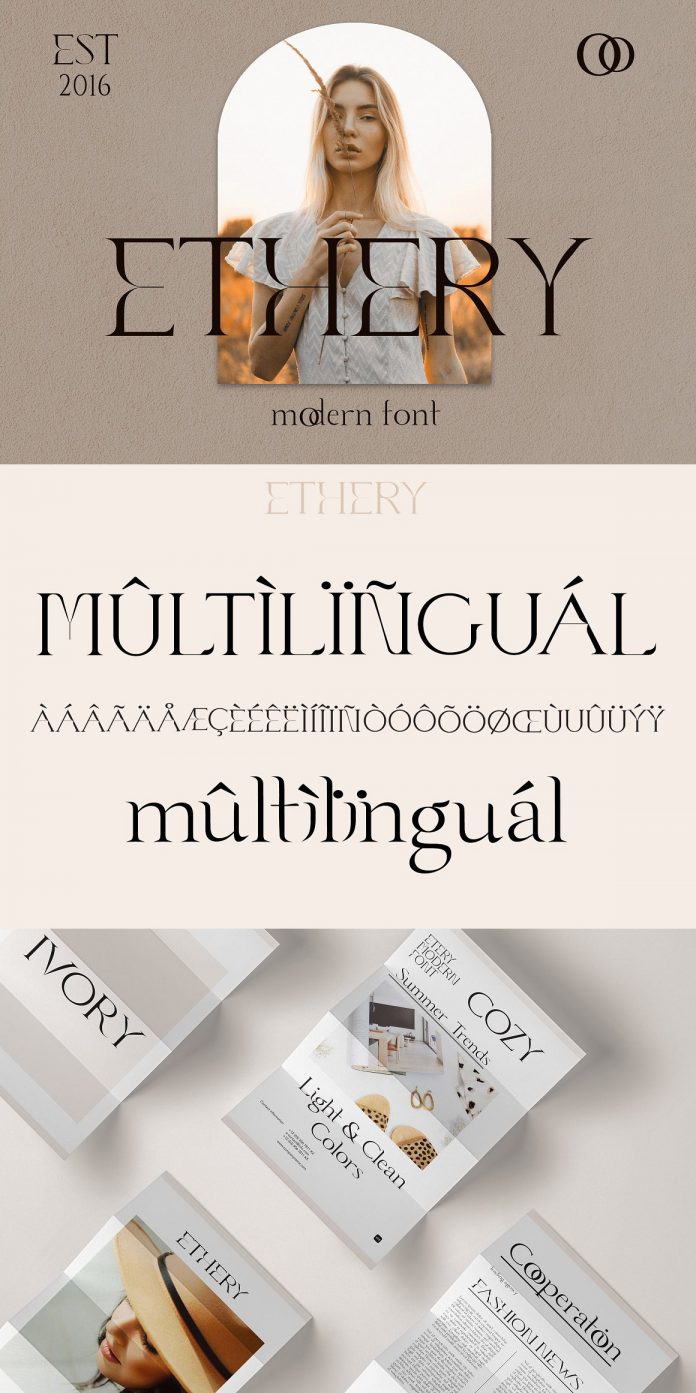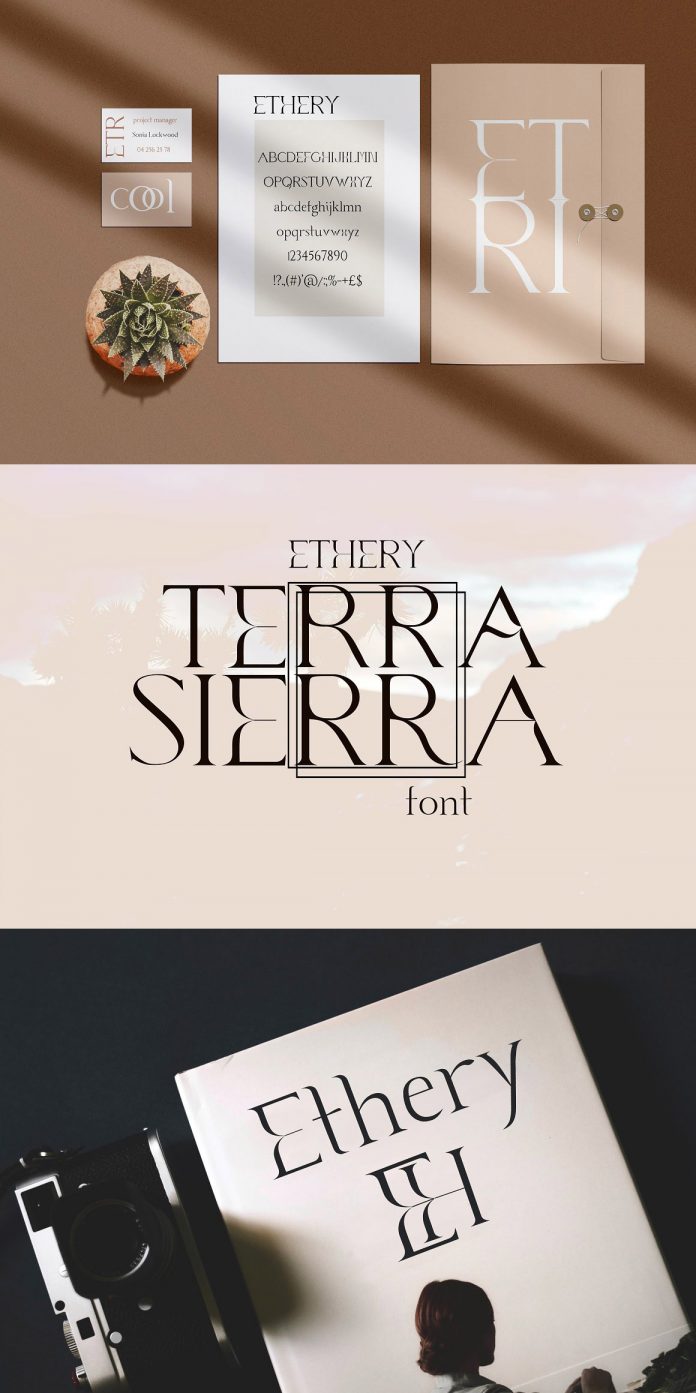
Ethery, a decorative modern serif font with a unique style.
Available for download in the OpenType format, Ethery is a new display serif font with a quite unique appearance. The typeface is equipped with uppercase characters and lowercase characters as well as an eye-catching range of discretionary ligatures. You can use it for plenty of design projects including logos, invitations, website headers, branding, or even editorial work, just to name a few. The character set supports multiple languages. Ethery is a newly designed font from French studio LABFcreations. To learn more, just click on the following link or have a look at the images below.